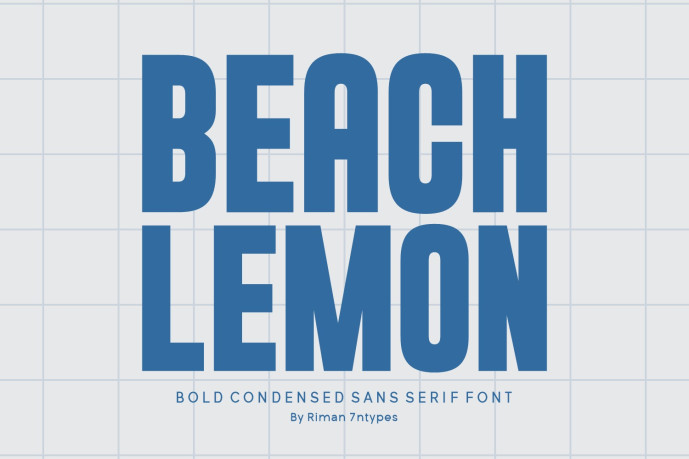
Beach Lemon Font
Presenting the bold and captivating Beach Lemon: the ultimate condensed sans-serif font you’ve been looking for. Its signature is its muscular presence, shaped by tight, compact letterforms and robust, unyielding strokes. Masterfully designed for attention-grabbing visuals, it’s a font that purely embodies the raw energy of industrial and sport aesthetics.
Beach Lemon is where functionality meets flexibility. It’s a stroke of genius for your Print On Demand (POD) ventures, adding an air of cool dominance to your streetwear attire, athletic jerseys, hoodies, and fitness outfits. Its pristine, yet daring character also shines in high-drama environments such as commanding headlines, dynamic film titles, cutting-edge branding, and attention-commanding social media graphics.
From a stylish clothing line to a formidable sports team, Beach Lemon lends an air of confident professionalism and bustling vitality. Delivered in both OTF and TTF formats and packed with complete PUA encoding for easy character access, it’s a font that matches your demands, a font that makes a lasting imprint at first glance.